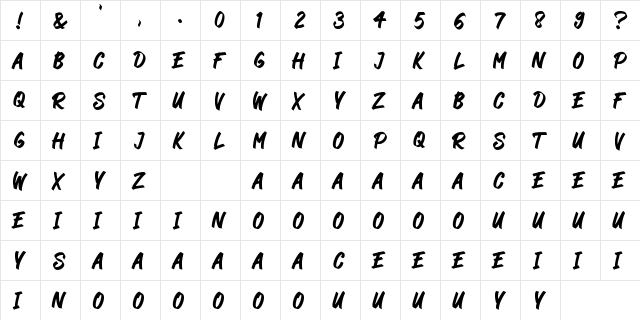
Wildest Force Regular
Design Context for Wildest Force Typeface
Wildest Force has the bold swagger of sports branding: strong, assertive letterforms designed to dominate headlines and jerseys alike.
A natural choice for gym brands, fantasy sports, jersey lettering, and action-driven headlines.
Pro Tip: Use Wildest Force in all-caps headlines where its athletic energy can fully express itself. Pair with a solid, simple sans for supporting text.